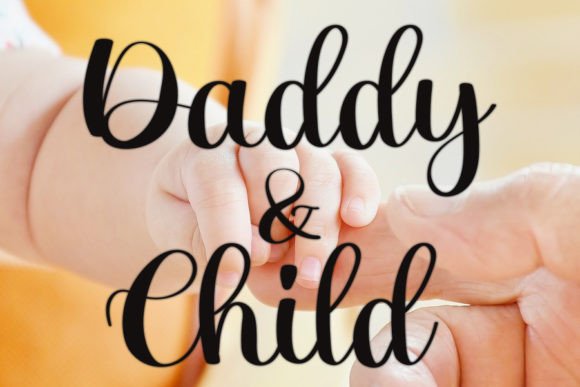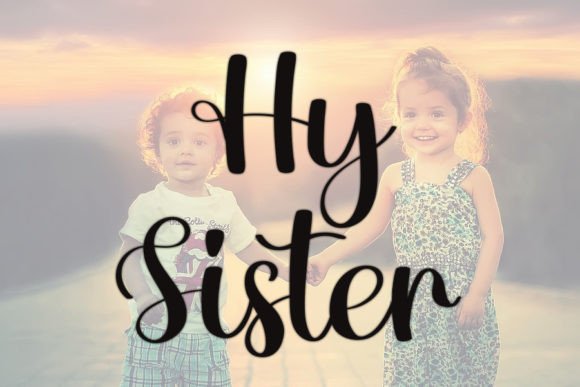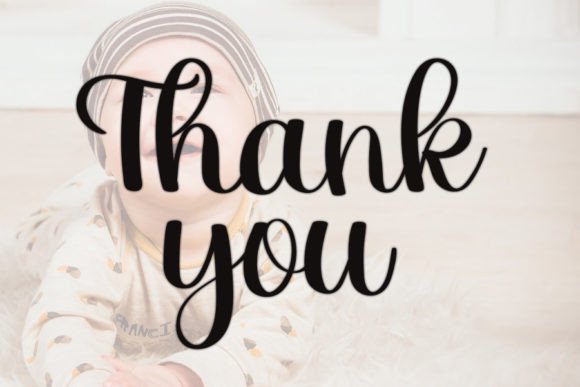
The Sweet Charm of Child Font: A Designer’s Delight
I’ll never forget the time I was working on a wedding invitation project, and my client asked for a font that was “sweet, delicate, and romantic.” I scoured the internet, tried out dozens of fonts, but nothing seemed quite right. That was until I stumbled upon Child Font. ✨ This beautiful, handwritten font has been a game-changer for me, and I’m excited to share its charm with you.
- ✨ Sweet and delicate: Child Font is perfect for designs that require a touch of elegance and sophistication.
- ✅ Highly legible: Despite its delicate nature, Child Font is surprisingly easy to read, even at smaller sizes.
- 💕 Romantic feel: This font is ideal for wedding invitations, love letters, or any design that requires a romantic touch.
- 🎨 Versatile: Child Font can be used for a variety of design projects, from paper crafts to digital designs.
While Child Font is a beautiful font, it’s not without its quirks. 🤔 Here are a few things to keep in mind:
- ⚠️ Limited character set: Child Font may not have all the characters you need, especially when it comes to non-English languages.
- ⚠️ Not suitable for body text: Due to its delicate nature, Child Font is best used for headings, titles, or short paragraphs.
The Story Behind Child Font
Child Font was designed by a talented type designer who wanted to create a font that was both sweet and elegant. Inspired by traditional handwriting, Child Font is a modern take on classic script fonts. With its delicate lines and playful personality, Child Font is perfect for designers who want to add a touch of romance to their designs.
| Font Name | Child Font |
| Author | ABBAsalam |
Q: What is Child Font best used for?
A: Child Font is ideal for designs that require a sweet, delicate, and romantic touch, such as wedding invitations, love letters, or paper crafts.
Q: Is Child Font available in multiple languages?
A: Child Font may not have a full character set for all languages, so it’s best to check the font’s language support before using it for a project.